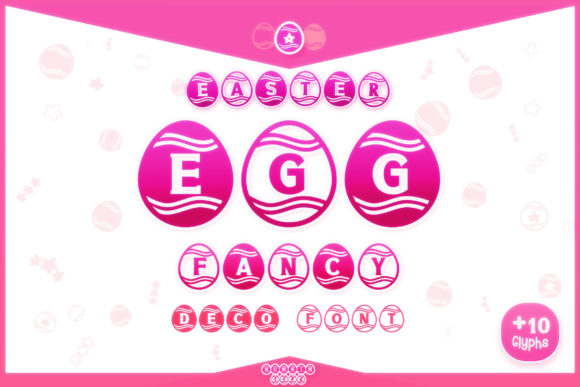
Step into the world of Easter Egg Fancy Font, a whimsical and enchanting font family designed to add a touch of magic to your creative projects. This decorative font, meticulously crafted by numnim, captivates with its playful and cheerful characters, making it the perfect choice for adding a personal touch to your designs.
Embark on a delightful journey with Easter Egg Fancy Font, an exquisitely designed creation that will transform your designs into captivating works of art. Its enchanting characters dance and swirl, evoking a sense of wonder and inviting you to explore the boundless possibilities of imagination.
Whether you're designing stickers that bring smiles, mugs that spark joy, or t-shirts that ignite conversations, Easter Egg Fancy Font is your perfect companion. Its versatility extends to ornaments that adorn your home with festive cheer, Billiard-themed creations that add an element of playfulness, and Easter's Event cards that spread the spirit of celebration.
The possibilities are as endless as your creativity. Let Easter Egg Fancy Font inspire you to create event invitations that leave a lasting impression, adding a touch of elegance to your special occasions. With this font by your side, your designs will effortlessly capture hearts and create memories that last a lifetime.
But what truly sets Easter Egg Fancy Font apart is its PUA encoding, a magical key that unlocks a treasure trove of glyphs and swashes. With this font, you have the power to effortlessly incorporate intricate details and stunning flourishes into your designs, elevating them to new heights of artistry.